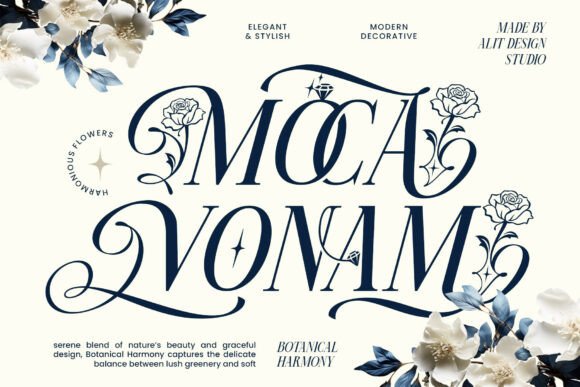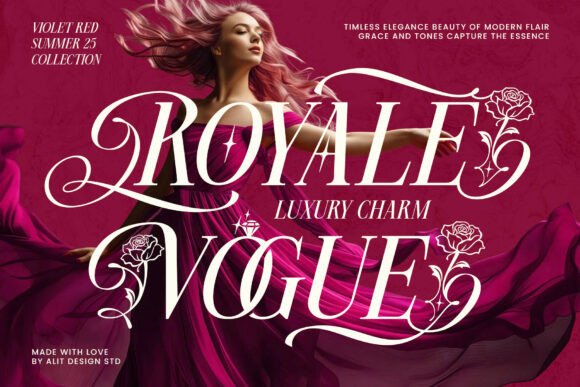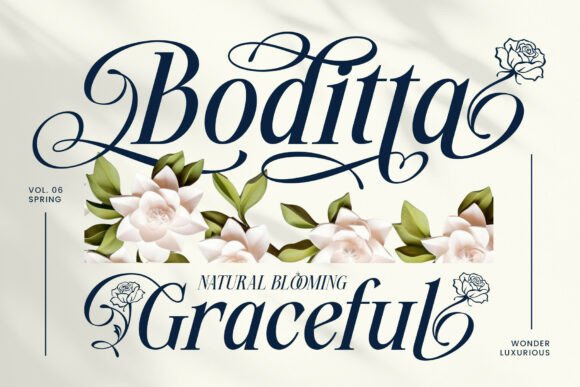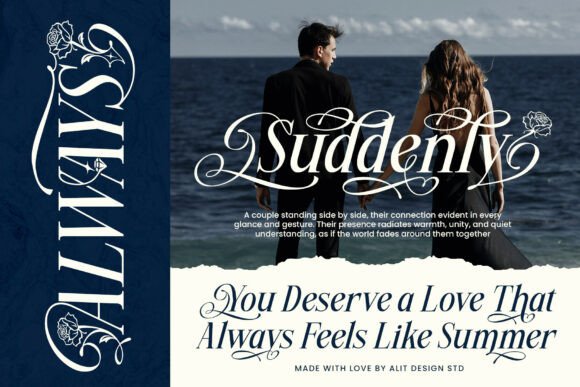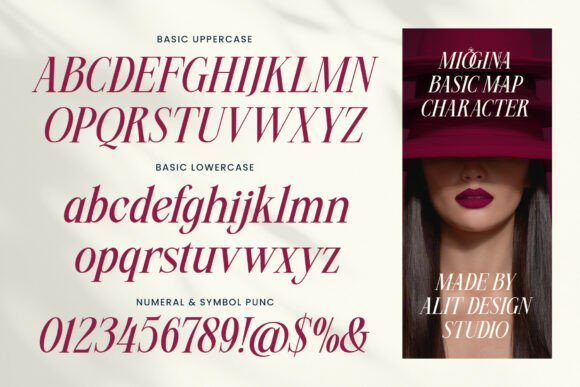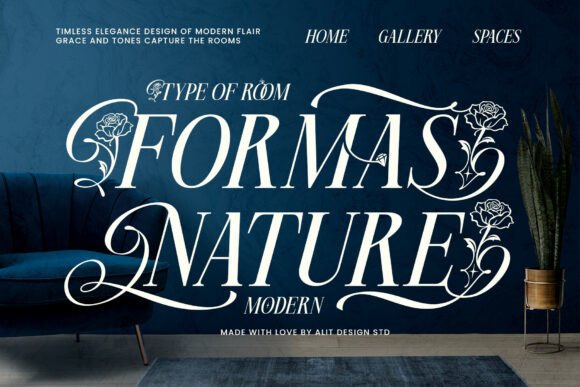
Introduction to Miogina Font
Have you ever found yourself staring at a blank canvas, unsure of how to bring your creative vision to life? The blank page can be intimidating, but it’s in these moments of uncertainty that the perfect design tool can make all the difference. For designers seeking to elevate their projects with a touch of sophistication and elegance, the Miogina Font is poised to become your new go-to resource.
Designed with meticulous attention to detail by Alit Design Studio, the Miogina Font is an exquisitely crafted modern serif typeface that seamlessly blends the clean lines of a contemporary design with the flowing elegance of ornate swashes. This unique fusion of styles offers the perfect solution for designers looking to convey a message that is both authoritative and enchanting.
Whether you’re working on a high-end branding project or a creative campaign, the Miogina Font is the perfect design resource to add a touch of luxury and romance to your work. With its rich, ornamental glyphs and transparent background, this high-quality font is free to download and ready to elevate your design aesthetic to new heights.
Key Features of Miogina Font
- Features a unique and modern design aesthetic, perfect for contemporary creative projects
- Designed with high-resolution clarity, suitable for print and digital applications
Honest Review: Miogina Font
I recently had the opportunity to work with the Miogina Font, and I’m excited to share my honest review with you. As a designer, I’m always on the lookout for high-quality design resources to elevate my creative projects.
Here are some things that work well with the Miogina Font:
- ✨ High-quality typography: The font is incredibly detailed and has a beautiful, elegant feel to it.
- ✨ Versatility: I was able to use the Miogina Font in a variety of creative projects, from branding to web design.
- ⚠️ Limited transparency options: I found that the font’s transparent background option was a bit limited, which made it difficult to use in certain design scenarios.
- ⚠️ Not suitable for all design styles: While the Miogina Font is beautiful, it may not be the best choice for all design styles or projects.
Overall, I’m impressed with the Miogina Font and would definitely recommend it to designers looking for a high-quality, elegant font for their creative projects. With a bit of creativity, you can overcome the limitations and achieve stunning results.
Introduction to Miogina Font
Discover the Miogina Font, a high-quality design resource perfect for creative projects. This font is available for free download and features a transparent background, making it an ideal choice for designers.
Getting the Most Out of Miogina Font
To get the most out of the Miogina Font, experiment with different font sizes, colors, and combinations to find the perfect look for your project.
The Miogina Font is perfect for a variety of creative projects, including: